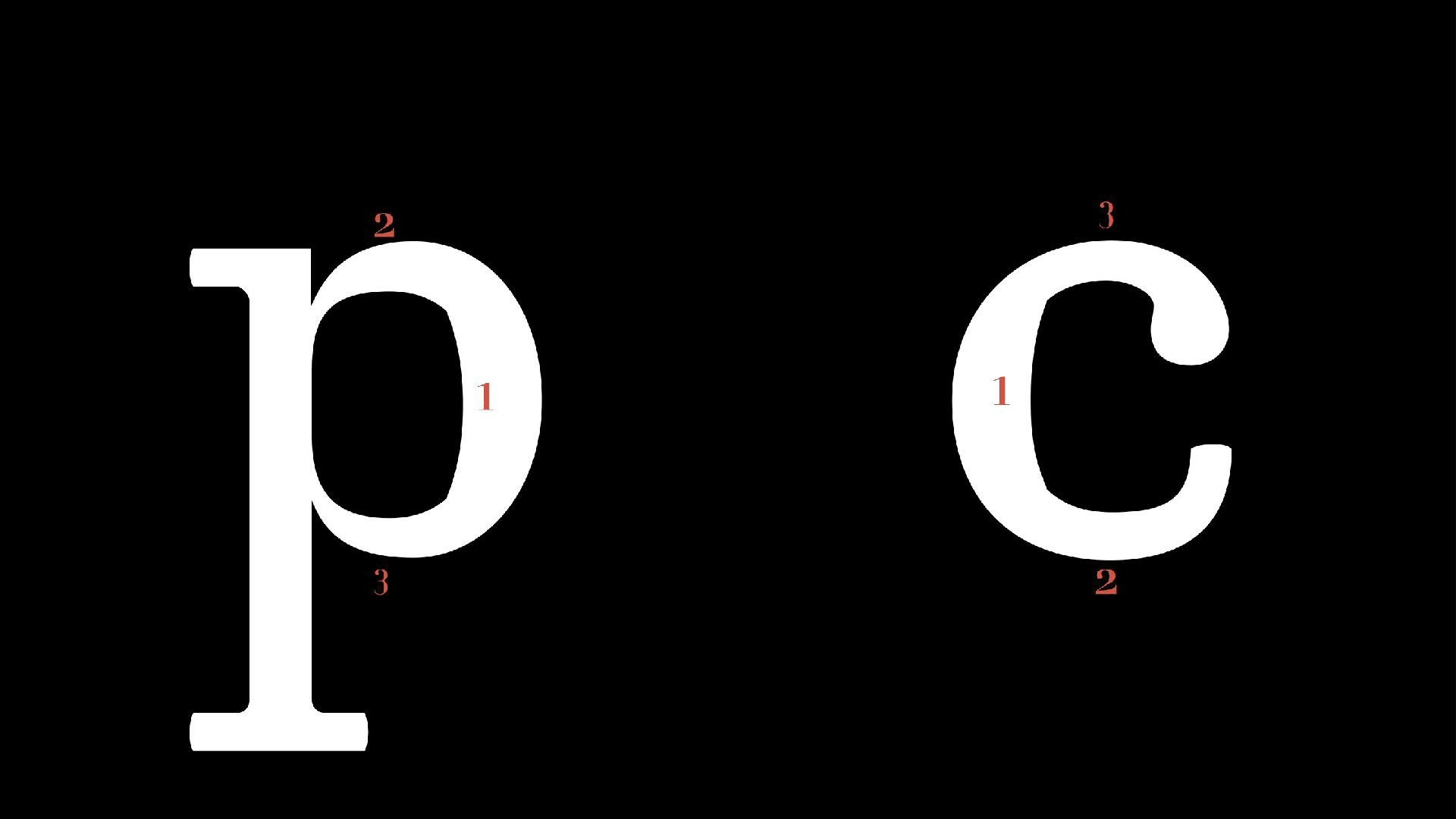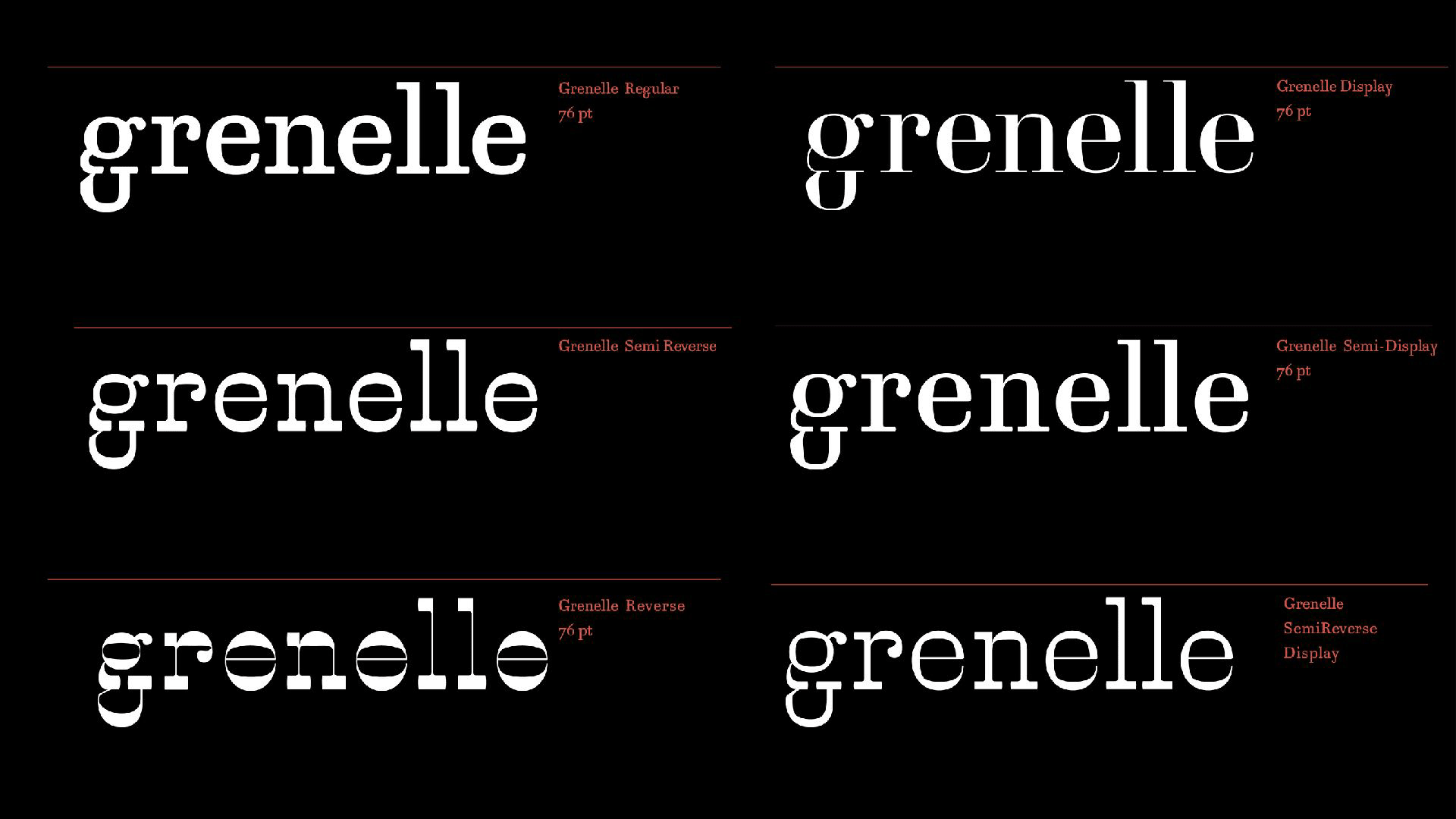
Grenelle
Grenelle typeface family has been designed with the intention to explore different kind of contrast under the same type family. The main idea is to design a family that instead of having different weight, would have different style of contrast.
The family aim to connect the French high contrast Didone types with the weirdness of the reverse contrast All the different style they are all based on the same reference and model, a Didone typeface taken from the “Petit Carême De Massillon de Eveque De Clermont”.
Having designed these diametrically opposite versions: low, high and reverse contrast, the interpolation of these three different extremes produced surprisingly and unexpected new weights.
Grenelle Regular, Grenelle Display and Grenelle reverse interpolated togheter create: Grenelle Semi-Display, Grenelle Semi-Reverse Semi-Display and Grenelle Semi-Reverse.